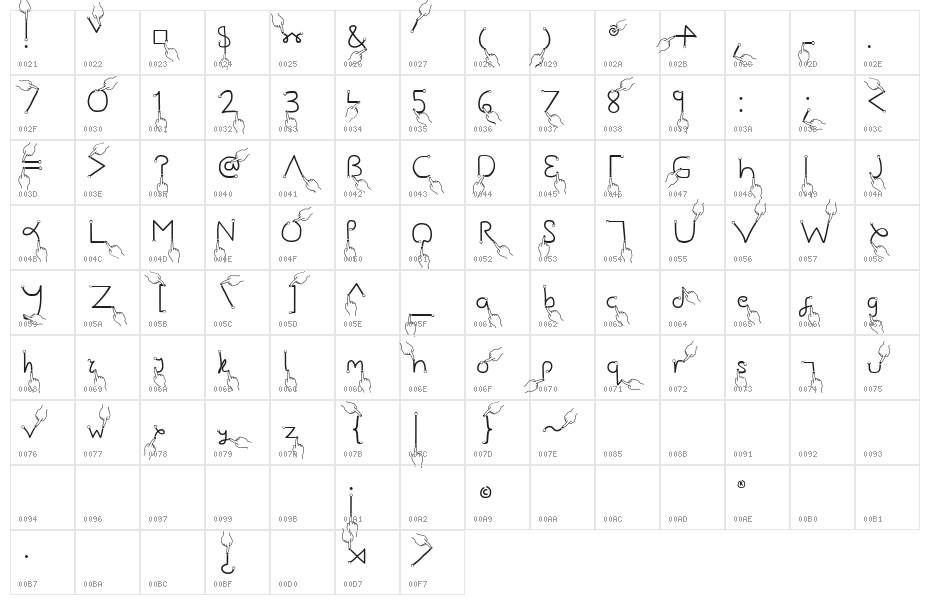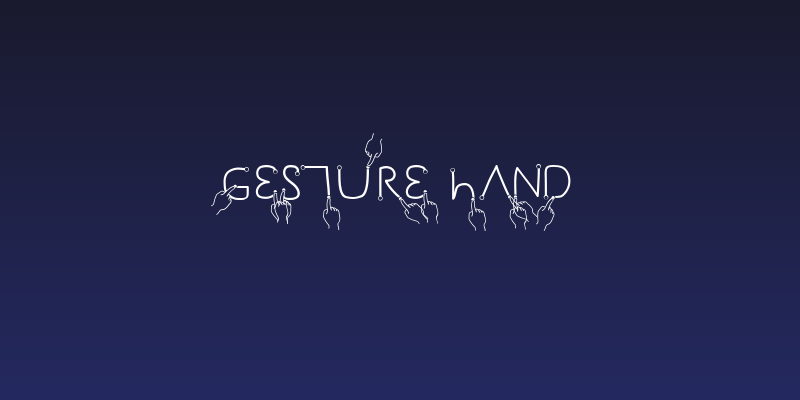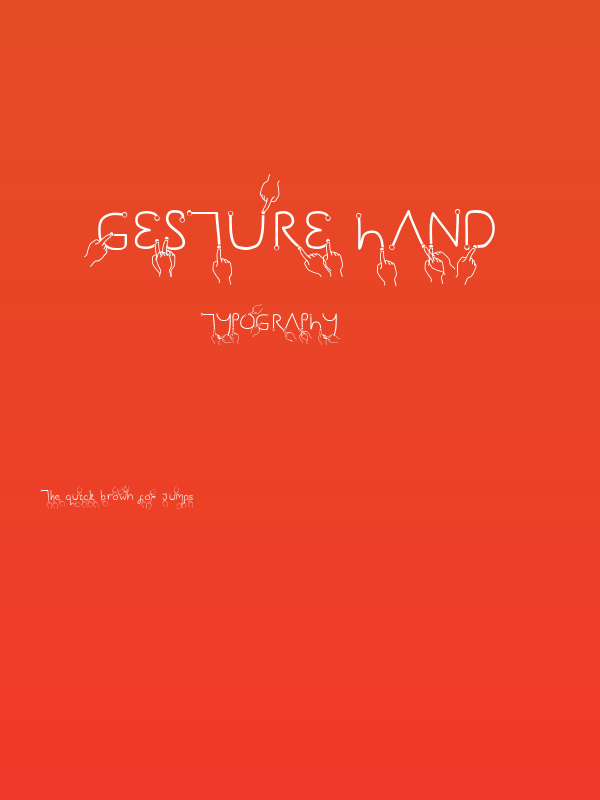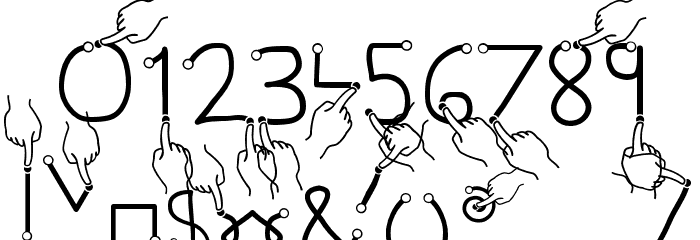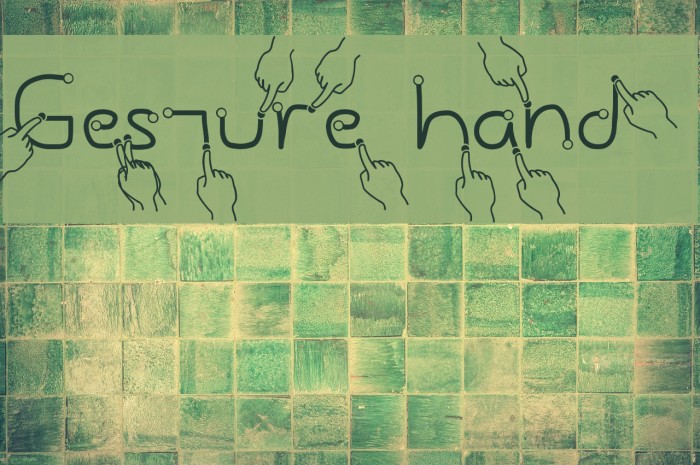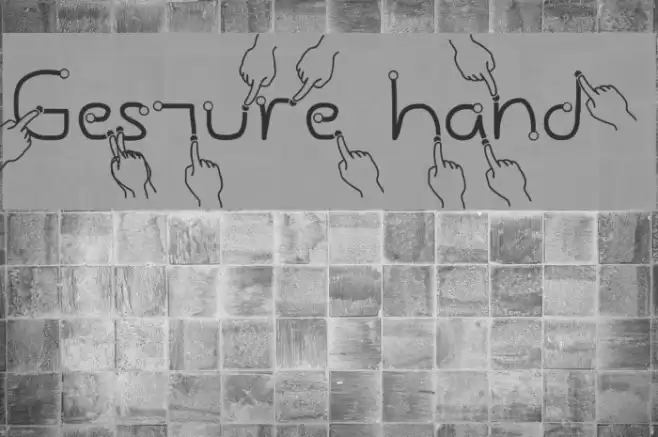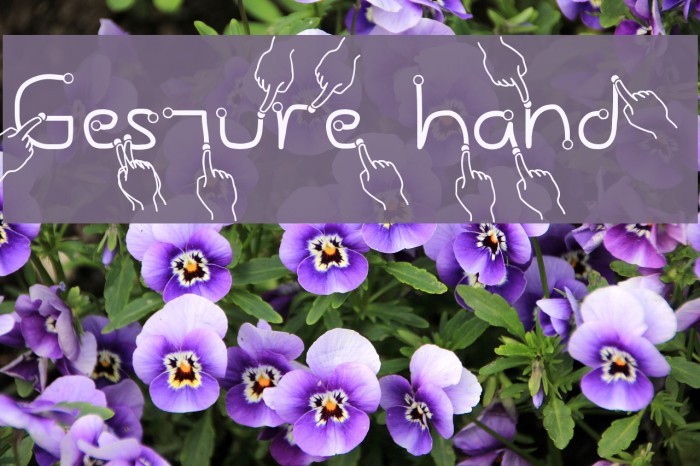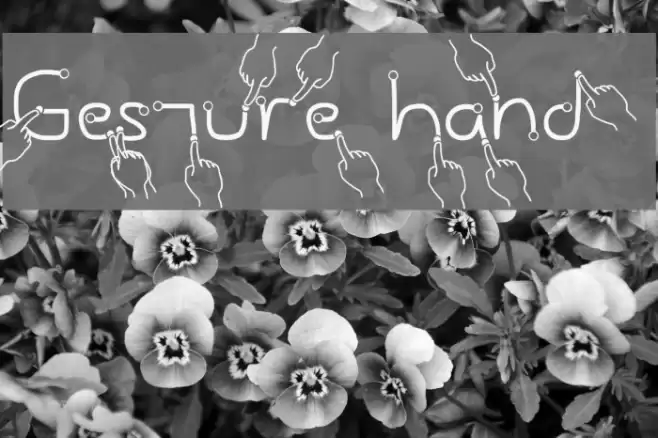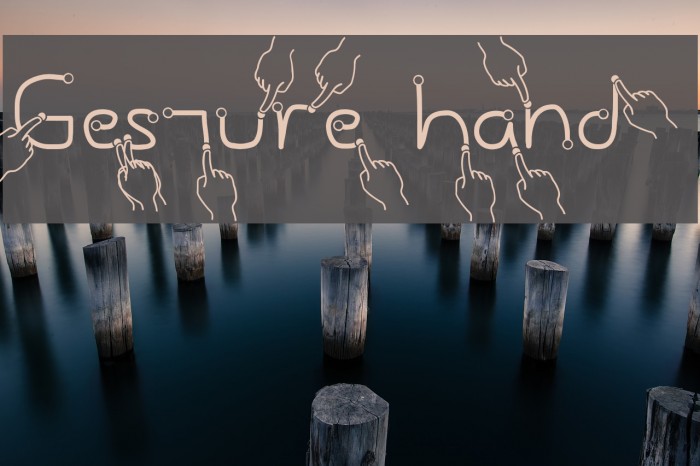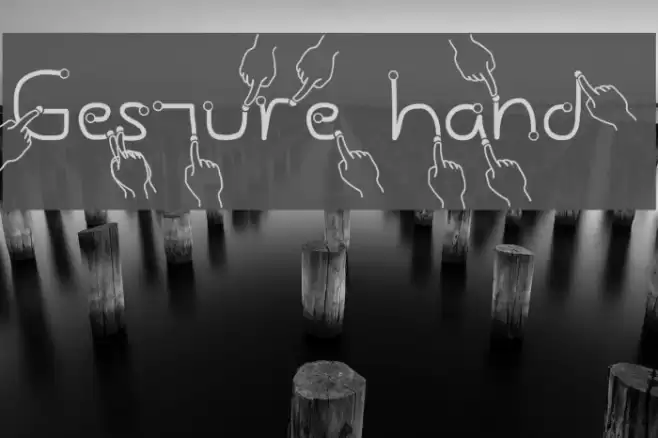
Gesture Hand Font
| Область применения | Logos, Posters, Creative projects |
| Рекомендуемые проекты | Ideal for children's books, playful branding, educational materials, and creative posters. |